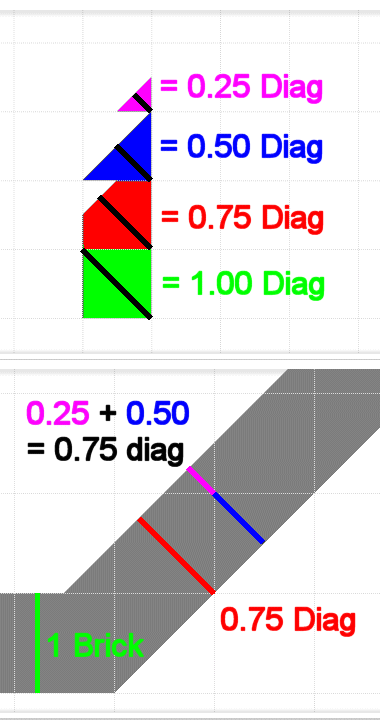
This purpose of this font is to show how to approximate brick diagonals for making 45º angles.
While working on my "Alex Murphy Dings" font of OCP Logos,
Alex Murphy Dings
I, too, came upon the problem of trying to maintain the proper thickness while using 45º angles. This is where math — especially the Pythagorean Theorem — is your friend.
For a brick 1 unit long by 1 unit high, the diagonal length is 1.414 units long. So, to get a diagonal that is 1 unit in length (to match the brick height), the brick itself must be 0.7071 units long by 0.7071units high. Unfortunately, there is no 0.71 scale brick in FontStruct; everything is set to a 1-unit scale. However, we DO have a brick that has a diagonal length of 1.06 units, which is quite close to 1 unit!
I refer to them as diagonal units in the accompanying pictures:
1/4 Angle Brick = 0.35 --> "0.25" diagonal units
1/2 Angle Brick = 0.71 --> "0.50" diagonal units
3/4 Angle Brick = 1.06 --> "0.75" diagonal units
1 Full Brick = 1.414 --> "1.00" diagonal units
All you have to do is:
(1) Divide the Brick Height by 1.414 (the square root of 2)
(2) Round to the nearest 0.25; this gives you the "diagonal unit"
(3) Add the bricks listed above until they total the desired diagonal unit!
Here is a list of the first 10 Brick Heights and their corresponding Diagonal Units:
01 Brick High = 0.71 --> "0.75" Diagonal Units
02 Bricks High = 1.41 --> "1.50" Diagonal Units
03 Bricks High = 2.12 --> "2.00" Diagonal Units
04 Bricks High = 2.83 --> "2.75" Diagonal Units
05 Bricks High = 3.54 --> "3.50" Diagonal Units
06 Bricks High = 4.24 --> "4.25" Diagonal Units
07 Bricks High = 4.95 --> "5.00" Diagonal Units
08 Bricks High = 5.66 --> "5.75" Diagonal Units
09 Bricks High = 6.36 --> "6.25" Diagonal Units
10 Bricks High = 7.07 --> "7.00" Diagonal Units
And so on...
You can also do fractional bricks:
1.5 Bricks High = 1.06 --> "1.00" Diagonal Units
Of course, the bigger and more complex (and thus more) bricks you use in your FontStruct, the more accurate the thickness of your angle will become.
No wonder my thick and thinnesses are so hit-and-miss-arbitrary. I do everything by eye.
The love of geometry. Thank you for sharing this useful tutorial. I struggle with a similar problem at the angle of 30 or 60 degrees. Any suggestion? 10/10
@Frodo7 -- That's a terrific idea! I hadn't thought of those angles, but I'll perform some calculations to see if a similar pattern emerges for the 30º/60º angles as well.
@Frodo7 -- After performing some geometric calculations, I think the 30º/60º angles are far too difficult to come up with a similar solution. The bricks would have to be highly specialized and cannot be made through composites at this time.
thank you. this is so completely useful. With fontstruct it's easy to just subjectively eyeball things and when something's a tad off it's easy to not notice. This helps tighten things back down when "eyeballing" might fail.
Hi Goatmeal. I really like your tutorial. It's very informative for Fontstructors alike. However I have found a few angles that could be improved, by using the advanced composites found in All Composites Saved In My Bricks 8 bricks and 9 bricks. Examples are below.
I understand that your tutorial uses current bricks for simplicity, but you may want to add the ones below as advanced options.
2 Bricks (Advanced)
3 Bricks (Advanced)
8 Bricks (advanced)
9 Bricks (Advanced)
This is really good stuff! Proves that fontstruct goes far beyond fonts alone, and I've also always wondered how to solve this problem. Well executed, handy and informative. Definitely a tool to have around!